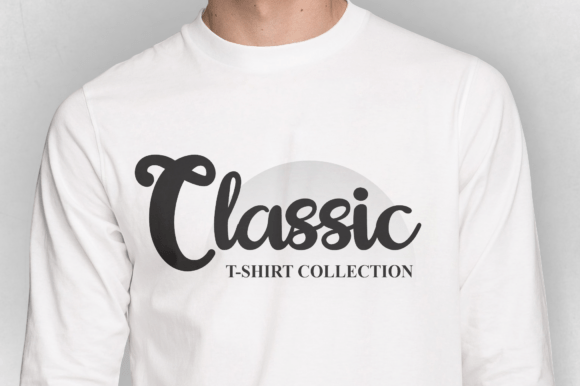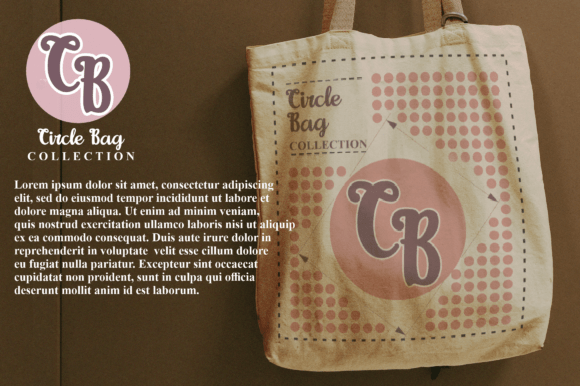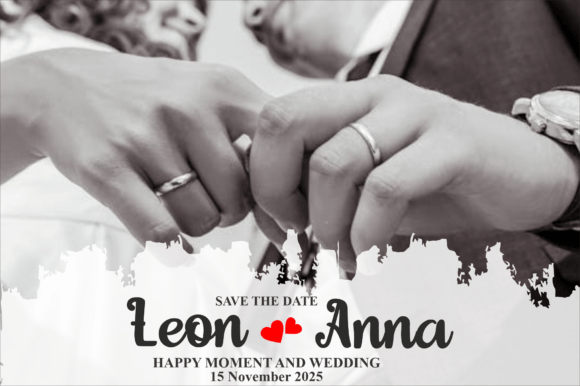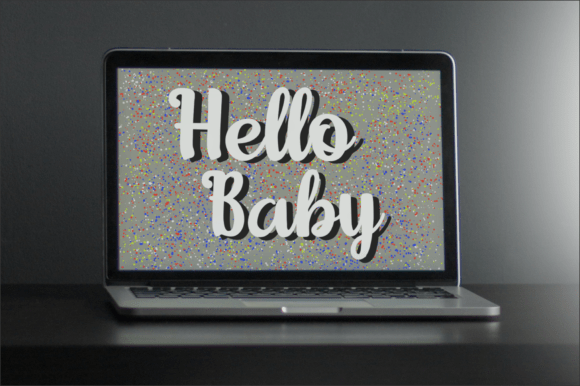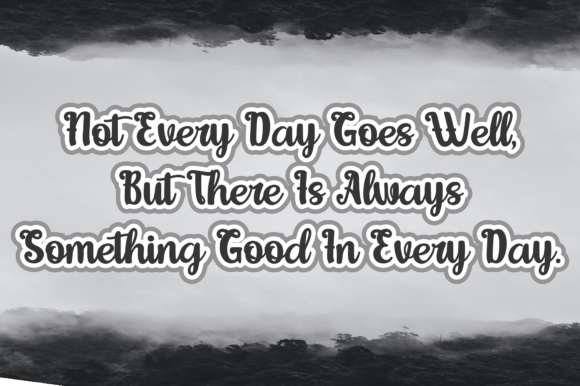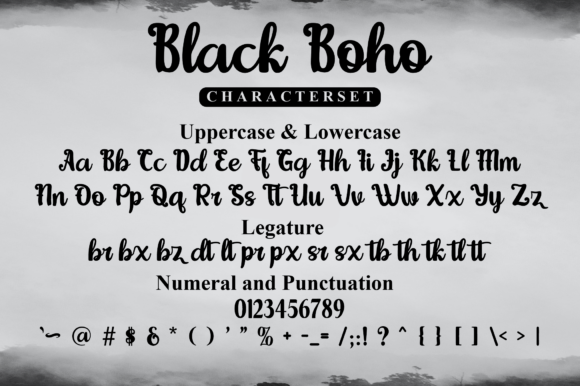
Unleash Your Creativity with Black Boho Font: A Bold and Expressive Handwritten Style
Are you a designer, crafty entrepreneur, or social media enthusiast looking for a font that embodies modern bohemian charm and striking personality? Look no further than the Black Boho Font. This bold and expressive handwritten font is perfect for creating stunning branding, invitations, apparel, social media graphics, and more. With its thick strokes and flowing curves, Black Boho exudes a stylish script that feels both casual and confident.
What Makes Black Boho Font Stand Out?
Black Boho Font is not just another ordinary font. Its unique blend of modern bohemian style and bold expressiveness makes it a standout in the world of typography. Here are some of its key features:
- Uppercase and Lowercase Characters: Black Boho features a full set of uppercase and lowercase characters, allowing you to create a wide range of designs and texts.
- Ligatures and Alternate Characters: The font includes a beautiful set of ligatures, numbers, and punctuation, all designed with smooth fluidity and a touch of artistic flair.
Black Boho Font is versatile and can be used for a wide range of design projects, including:
- Branding: Create a lasting impression with bold and eye-catching logos, business cards, and letterheads.
- Invitations: Design stunning invitations for weddings, parties, and other special events.
- Apparel: Add a touch of personality to t-shirts, hoodies, and other clothing items.
- Social Media Graphics: Create engaging social media graphics, including Facebook posts, Instagram stories, and Twitter headers.
Why Choose Black Boho Font?
With so many fonts available, why choose Black Boho Font? Here are just a few reasons:
- Unique Style: Black Boho Font offers a unique blend of modern bohemian charm and bold expressiveness, making it perfect for designers and crafters looking for something new and exciting.
- Attention-Grabbing: Black Boho Font is designed to grab attention and leave a lasting impression, making it perfect for branding, advertising, and other design projects where you want to stand out.
Tips for Using Black Boho Font
Here are a few tips for getting the most out of Black Boho Font:
- Experiment with Ligatures: Black Boho Font features a range of ligatures and alternate characters. Experiment with these to add a touch of personality to your designs.
- Play with Font Sizes: Black Boho Font looks great in a variety of font sizes. Experiment with different sizes to create visual interest and hierarchy in your designs.
- Pair with Other Fonts: Black Boho Font pairs well with a range of other fonts. Experiment with different pairings to create a unique and eye-catching design.
Black Boho Font is a bold and expressive handwritten font that is perfect for designers, crafters, and entrepreneurs looking for a unique and attention-grabbing style. With its thick strokes, flowing curves, and modern bohemian charm, Black Boho Font is sure to make a lasting impression. Whether you’re designing branding, invitations, apparel, or social media graphics, Black Boho Font is the perfect choice.